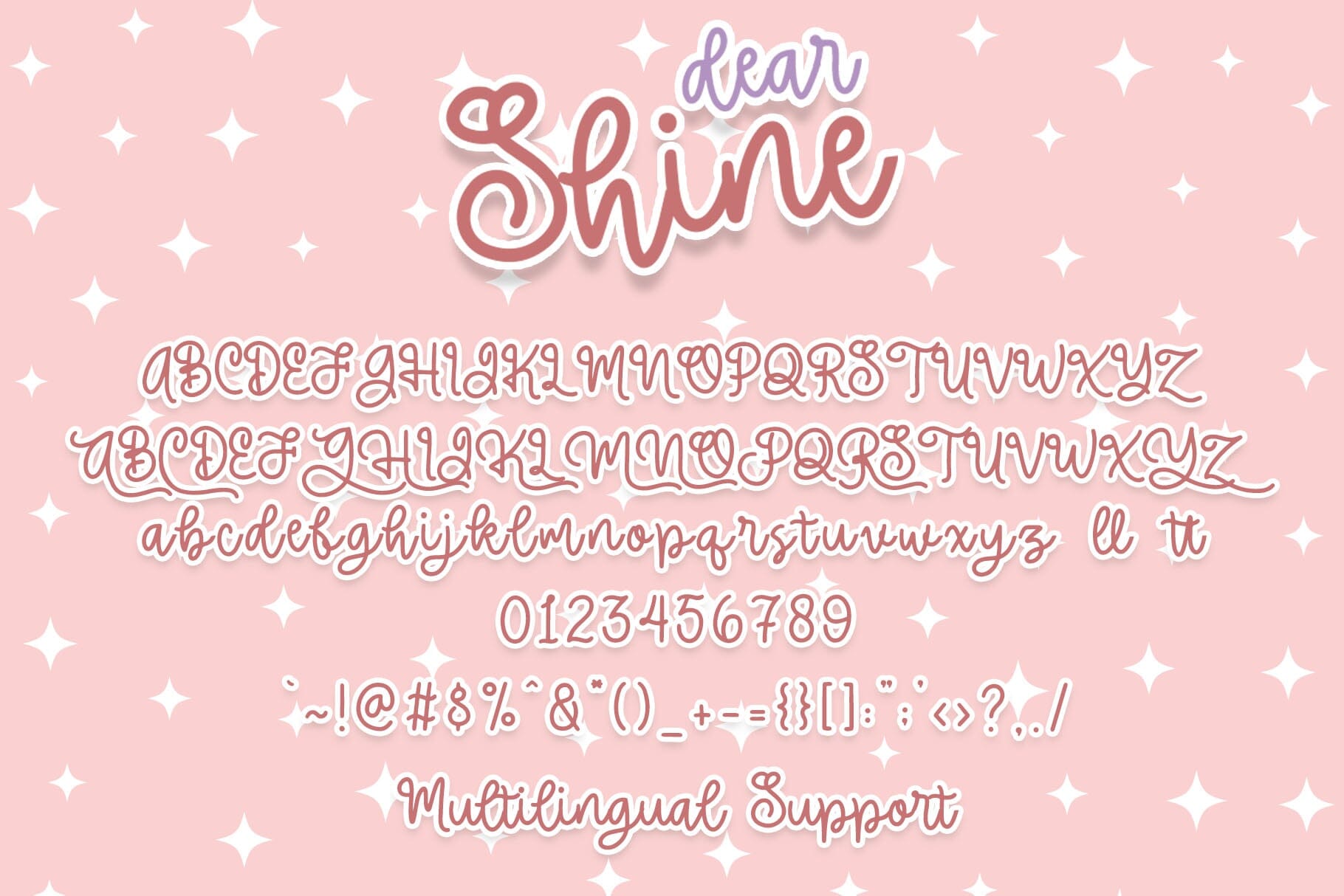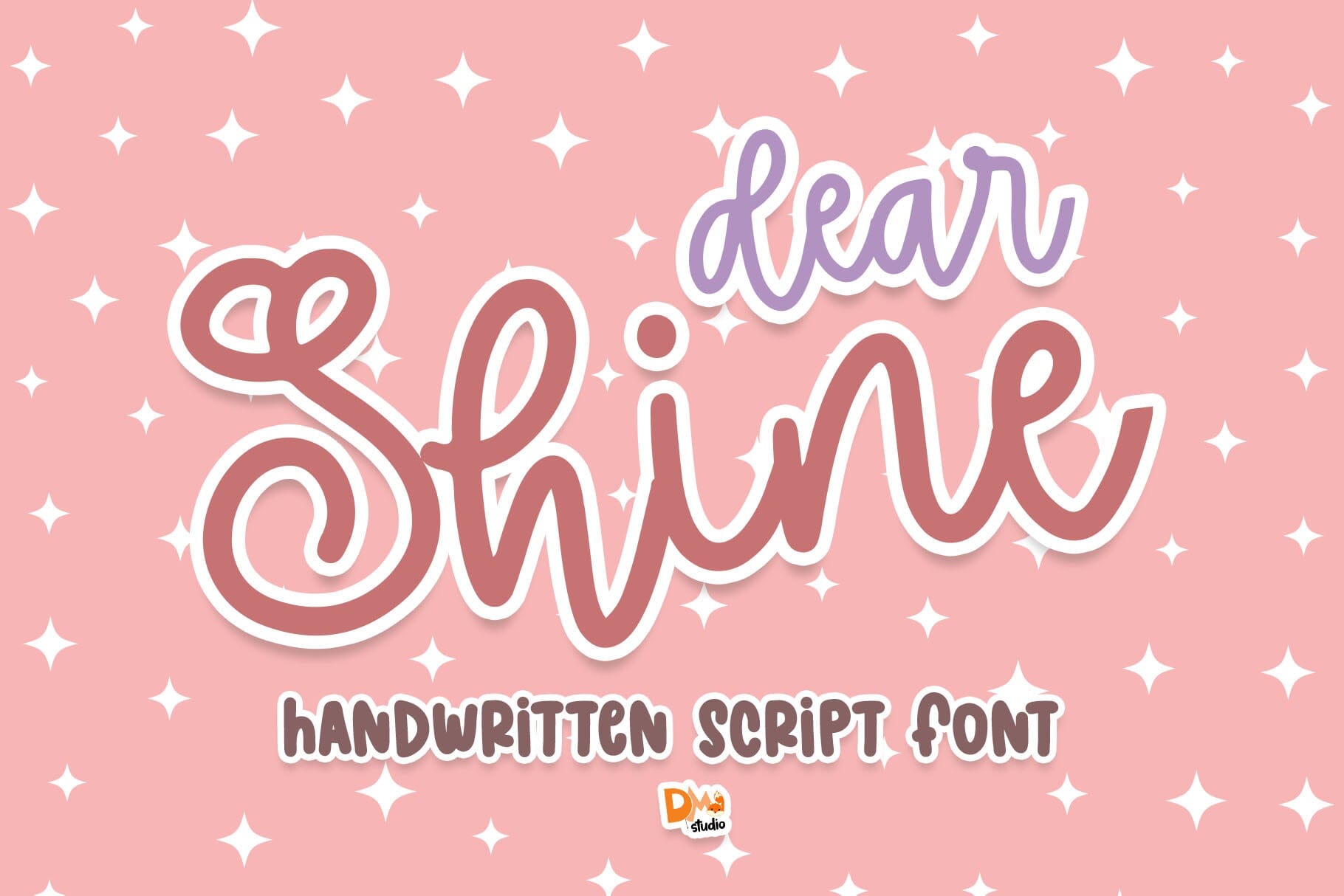
Dear Shine Font – Free Elegant Typeface for Creative Projects
If you’re searching for a graceful and luxurious font for your next design project, the Dear Shine font is the perfect choice. With its refined curves, smooth strokes, and timeless appearance, this typeface is designed to add charm and sophistication to every piece of visual content. Whether you’re working on wedding invitations, branding, social media graphics, or personal art projects, Dear Shine offers a stunning solution to elevate your typography.
Elegant & Timeless Design
One of the most striking features of the Dear Shine font is its elegance. The font includes both uppercase and lowercase letters, each drawn with care to maintain visual harmony and legibility. It also includes ligatures and special characters, making it highly versatile and expressive. Whether you’re designing romantic invitation cards or high-end brand materials, this font creates a polished and premium look.
Perfect For Various Design Uses
The versatility of the Dear Shine font makes it a favorite among creatives. It shines in projects that demand a romantic, classy, or upscale aesthetic. Some popular use cases include:
- Wedding invitations and save-the-dates
- Luxury branding and product labels
- Elegant social media posts and banners
- Greeting cards and stationery